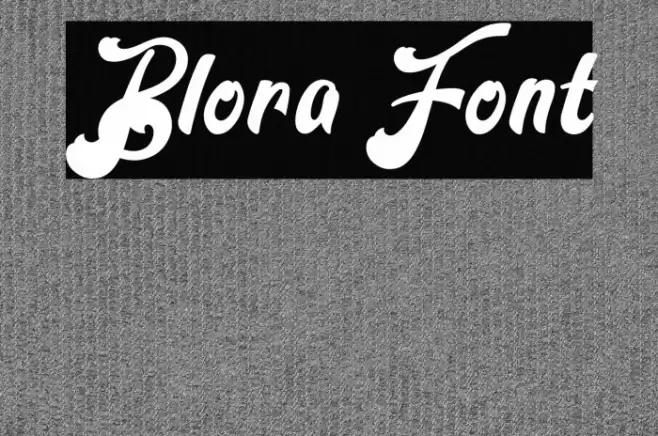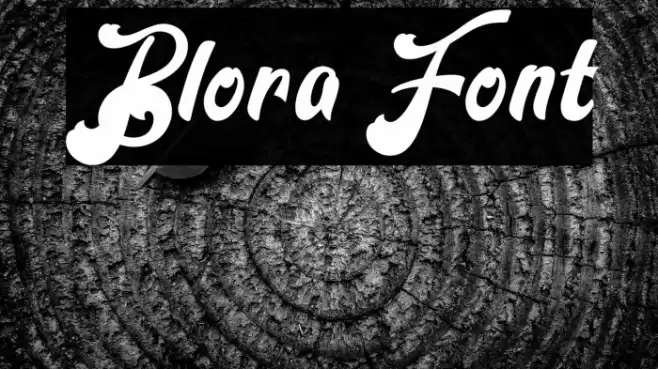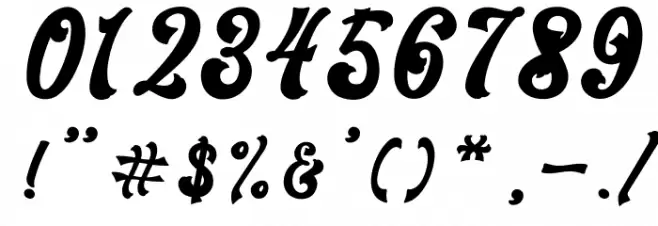
Blora Font
Blora Description
This font features a bold and expressive script style with a strong presence. The characters are fluid and connected, giving a sense of movement and elegance. The uppercase letters are particularly ornate, with flourishes that add a decorative touch. The lowercase letters maintain a consistent flow, enhancing readability while retaining a stylish appearance. Numbers and special characters are designed to match the overall aesthetic, ensuring a cohesive look across all text. The font's bold weight and high contrast between thick and thin strokes make it stand out, ideal for attention-grabbing designs.
A bold, expressive script font with high contrast and decorative flourishes from Regular fonts.
- Proposed Projects: Ideal for branding, invitations, posters, and any project requiring a dramatic and stylish script.
- Use Case: Logos, Headlines, Invitations